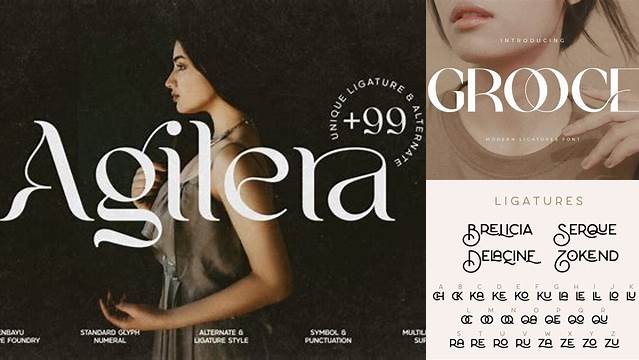
What are Gallery Ligature Fonts?
Hey guys! Ever wondered what makes some fonts look so darn elegant and polished? Well, a big part of it is often the use of ligatures. Gallery ligature fonts take this concept and run with it, offering a unique and stylish way to elevate your designs. But what exactly are ligatures, and why should you care about them? Let's dive in!
Ligatures, in the world of typography, are special characters that combine two or more letters into a single glyph. Think of it as a fancy shortcut for letters that often appear together. For instance, the letters 'f' and 'i' can sometimes look a bit awkward side-by-side. A ligature can seamlessly blend these letters, creating a more visually appealing and harmonious look. This is especially important in display fonts, where aesthetics are paramount. When you're looking for a gallery ligature font free download, you're essentially seeking a typeface that incorporates these elegant letter combinations, making your text flow beautifully and catch the eye. This makes your designs look more professional and considered. Itβs not just about making your text pretty; itβs about enhancing readability and creating a sophisticated feel. So, next time you see a beautifully designed logo or a stunning piece of typography, take a closer look β you might just spot a ligature doing its magic!
Why Use Ligature Fonts in Your Designs?
So, why should you even bother with ligature fonts in your designs? Well, the benefits are numerous, and they can seriously up your creative game. Ligature fonts add a touch of sophistication and elegance that regular fonts sometimes lack. Imagine you're designing a logo for a high-end brand or crafting an invitation for a fancy event. Using a font with beautiful ligatures can instantly elevate the overall look and feel, making it more memorable and impactful. Plus, with options for a gallery ligature font free download readily available, there's no reason not to give it a try. It's not just about aesthetics, though. Ligatures also play a crucial role in improving readability. Some letter combinations, like 'fi' or 'fl,' can appear clunky and awkward when simply placed next to each other. Ligatures smooth out these transitions, making the text flow more seamlessly and reducing visual distractions. This is particularly important in longer texts, where readability is key. But hey, let's be real β ligatures are just plain cool! They add a unique and artistic flair to your designs, setting them apart from the crowd. Whether you're working on branding, web design, or print materials, incorporating ligatures can help you create a visually stunning and professional result. And the best part? Many amazing ligature fonts are available for free download, so you can experiment and find the perfect one for your project without breaking the bank.
Where to Find Free Gallery Ligature Fonts
Top 5 Free Gallery Ligature Fonts You Should Download
Okay, let's get down to the nitty-gritty! You're on the hunt for a gallery ligature font free download, but with so many options out there, where do you even begin? I've curated a list of my top 5 favorite free ligature fonts that you absolutely need to check out. Trust me, these fonts are game-changers! First up, we have "Playlist Script". This font is a handwritten-style script that exudes charm and elegance. Its flowing ligatures add a personal touch, making it perfect for invitations, branding, and social media graphics. Next on the list is "Riesling". This font is a stunning display typeface with beautifully crafted ligatures that scream sophistication. It's ideal for headlines, logos, and any project where you want to make a statement. If you're looking for something a bit more modern, "Lora" is a fantastic choice. This well-balanced serif font includes subtle ligatures that enhance readability while adding a touch of class. It's versatile enough to use for both body text and headlines. For a playful and quirky vibe, check out "Amatic SC". This hand-drawn sans-serif font includes some unique ligatures that give it a fun and approachable feel. It's perfect for posters, websites, and anything that needs a touch of personality. Last but not least, we have "Mrs Saint Delafield". This elegant script font features graceful ligatures that add a touch of romance and sophistication. It's ideal for wedding invitations, greeting cards, and other special occasions. So, there you have it β my top 5 free gallery ligature fonts! Each of these fonts brings something unique to the table, and they're all available for free download. Go ahead and experiment with them in your designs β you won't be disappointed!
Designing a Logo with Gallery Ligature Fonts
Alright, let's talk about logos! If you're looking to create a logo that exudes sophistication and style, a gallery ligature font free download might just be your secret weapon. Ligature fonts can add a touch of elegance and uniqueness to your logo, making it stand out from the crowd. But how do you actually use them effectively in logo design? First and foremost, consider your brand's identity. What kind of message are you trying to convey? A formal and elegant brand might benefit from a classic script font with flowing ligatures, while a modern and minimalist brand might opt for a clean sans-serif font with subtle ligatures. The key is to choose a font that aligns with your brand's personality and values. When designing a logo with ligatures, less is often more. You don't need to use ligatures in every single letter combination. Instead, focus on highlighting key letters or words that represent your brand. For example, if your brand name is "Flowing Designs," you might choose to use ligatures in the "Fl" and "De" combinations to emphasize the flowing nature of your brand. Pay close attention to the spacing and kerning of your logo. Ligatures can sometimes create uneven spacing if not handled carefully. Adjust the kerning (the space between individual letters) to ensure that the letters flow smoothly and the logo looks balanced. Remember, legibility is crucial in logo design. While ligatures can add flair, they shouldn't compromise the readability of your logo. Make sure that the letters are still clear and recognizable, even with the ligatures. Experiment with different color combinations and backgrounds to see how the ligatures look in various contexts. A well-designed logo should look great in both color and black and white, and on different backgrounds. Finally, don't be afraid to be creative and break the rules! Ligature fonts can add a unique touch to your logo, but it's important to experiment and find what works best for your brand. So, go ahead, download a free gallery ligature font, and start creating a logo that truly shines!
Using Ligature Fonts in Website Design
Websites are all about creating a visually appealing and user-friendly experience, and using a gallery ligature font free download can seriously enhance your site's aesthetic. But how do you effectively incorporate ligatures into your web design? Let's break it down. First, consider the overall tone and style of your website. A website for a luxury brand, for example, might benefit from an elegant script font with flowing ligatures, while a more modern and tech-focused website might opt for a clean sans-serif font with subtle ligatures. Choose a font that aligns with your brand's identity and the message you're trying to convey. Headings and titles are a great place to showcase ligature fonts. These larger text elements can really make the ligatures stand out and grab the visitor's attention. Use ligatures strategically to highlight key words or phrases and create a visually appealing hierarchy on your pages. While ligatures can add a touch of elegance, it's crucial to ensure that your website's text remains readable. Avoid using overly ornate or complex ligatures that might make the text difficult to decipher. Stick to fonts with clear and legible letterforms, even with the ligatures. When using ligature fonts in body text, it's generally best to use them sparingly. Too many ligatures in large blocks of text can become distracting and make the text harder to read. Use them selectively to enhance certain words or phrases, rather than applying them to every letter combination. Consider the loading time of your website. Some fonts, especially those with complex ligatures, can be quite large in file size, which can slow down your website's loading speed. Optimize your fonts for the web to ensure that they load quickly without compromising the quality of your design. Use CSS to control the rendering of ligatures on your website. The font-variant-ligatures property allows you to enable or disable ligatures for specific text elements. This gives you fine-grained control over how ligatures are displayed on your site. Finally, test your website across different browsers and devices to ensure that the ligatures are rendering correctly. Different browsers and operating systems may handle fonts slightly differently, so it's important to check for any compatibility issues. By following these tips, you can effectively use ligature fonts to enhance the visual appeal of your website and create a more engaging user experience.
Typography Tips for Pairing Ligature Fonts
So you've snagged a sweet gallery ligature font free download β awesome! But now comes the fun (and sometimes tricky) part: pairing it with other fonts. Typography is an art, and the right font pairing can make or break your design. Let's dive into some tips to help you nail those pairings! First off, think about contrast. You generally want to pair a ligature font with a font that has a different style and weight. For example, if you're using a script font with flowing ligatures, try pairing it with a clean and simple sans-serif font. This creates a visual contrast that makes both fonts stand out. Consider the hierarchy of your text. Use the ligature font for headings and titles, where you want to grab attention, and pair it with a more readable font for body text. This ensures that your design is both visually appealing and easy to read. Pay attention to the mood and tone of your design. Different fonts evoke different emotions, so choose fonts that complement the overall message you're trying to convey. A formal design might call for a classic serif font paired with a sophisticated script, while a modern design might benefit from a sans-serif font paired with a geometric sans-serif. Don't be afraid to experiment, but also keep it simple. It's generally best to stick to two or three fonts in a single design. Too many fonts can create a cluttered and chaotic look. Look for fonts that share similar characteristics, such as x-height (the height of the lowercase letters) or stroke weight (the thickness of the lines). This can help create a more cohesive and harmonious look. Use online tools and resources to help you find font pairings. Websites like FontPair and Typewolf offer curated font pairings that you can use as inspiration. Finally, trust your eye! Ultimately, the best font pairing is the one that looks and feels right to you. Experiment, play around, and don't be afraid to break the rules. With a little practice, you'll be a font pairing pro in no time!
Creating Eye-Catching Social Media Graphics with Ligature Fonts
Social media is all about grabbing attention, and using a gallery ligature font free download can seriously level up your graphics game. Ligatures add a touch of elegance and uniqueness that can make your posts stand out in a crowded feed. But how do you effectively use them in your social media designs? Let's get into it! First, consider your brand's visual identity. What kind of aesthetic are you going for? A chic and sophisticated brand might benefit from a script font with flowing ligatures, while a modern and playful brand might opt for a sans-serif font with subtle ligatures. Choose a font that aligns with your brand's personality and the message you're trying to convey. Use ligatures strategically to highlight key words or phrases in your graphics. This can help draw the viewer's eye and make your message more memorable. For example, if you're promoting a sale, you might use ligatures in the word "Sale" or "Discount." Pair your ligature font with a complementary font for the rest of your text. As we discussed in the typography tips section, contrast is key. A clean and simple sans-serif font often pairs well with a more ornate ligature font. Pay attention to the size and spacing of your text. Make sure your text is large enough to be easily readable, even on small screens. Adjust the spacing and kerning to ensure that the letters flow smoothly and the text looks balanced. Use color to enhance the impact of your ligatures. A contrasting color can make your ligatures pop and draw even more attention to them. Just be sure to choose colors that are visually appealing and on-brand. Consider the platform you're designing for. Different social media platforms have different image size requirements and best practices. Make sure your graphics are optimized for each platform to ensure they look their best. Use mockups to preview your designs. This can help you see how your graphics will look in a real-world context, such as in a social media feed. Don't be afraid to experiment and try new things! Social media is a constantly evolving landscape, so it's important to stay creative and adapt your designs to current trends. By following these tips, you can create eye-catching social media graphics that incorporate ligature fonts and help your brand stand out from the crowd.
Ligature Fonts in Different Design Styles (Modern, Vintage, etc.)
Alright, let's get stylistic! You've got your eye on a gallery ligature font free download, but how do you know if it'll fit your specific design style? Ligatures can work wonders in various aesthetics, but it's all about matching the font to the vibe. Let's break down how ligature fonts shine in different design styles! First, let's talk Modern Design. This style is all about clean lines, minimalism, and a fresh, contemporary feel. In a modern design, ligature fonts can add a subtle touch of elegance without being overly ornate. Think clean sans-serif fonts with understated ligatures that enhance readability and add a touch of sophistication. Next up, Vintage Design. This style draws inspiration from the past, often incorporating elements from the early to mid-20th century. Ligature fonts are a perfect fit for vintage designs! Script fonts with flowing ligatures can evoke a sense of nostalgia and old-world charm. Serif fonts with classic ligatures can also work well, adding a touch of timeless elegance. Bohemian Design is all about free-spirited creativity, natural textures, and a relaxed, eclectic vibe. In a bohemian design, you can get away with more playful and whimsical ligature fonts. Handwritten-style fonts with unique ligatures can add a personal and artistic touch. Minimalist Design takes the